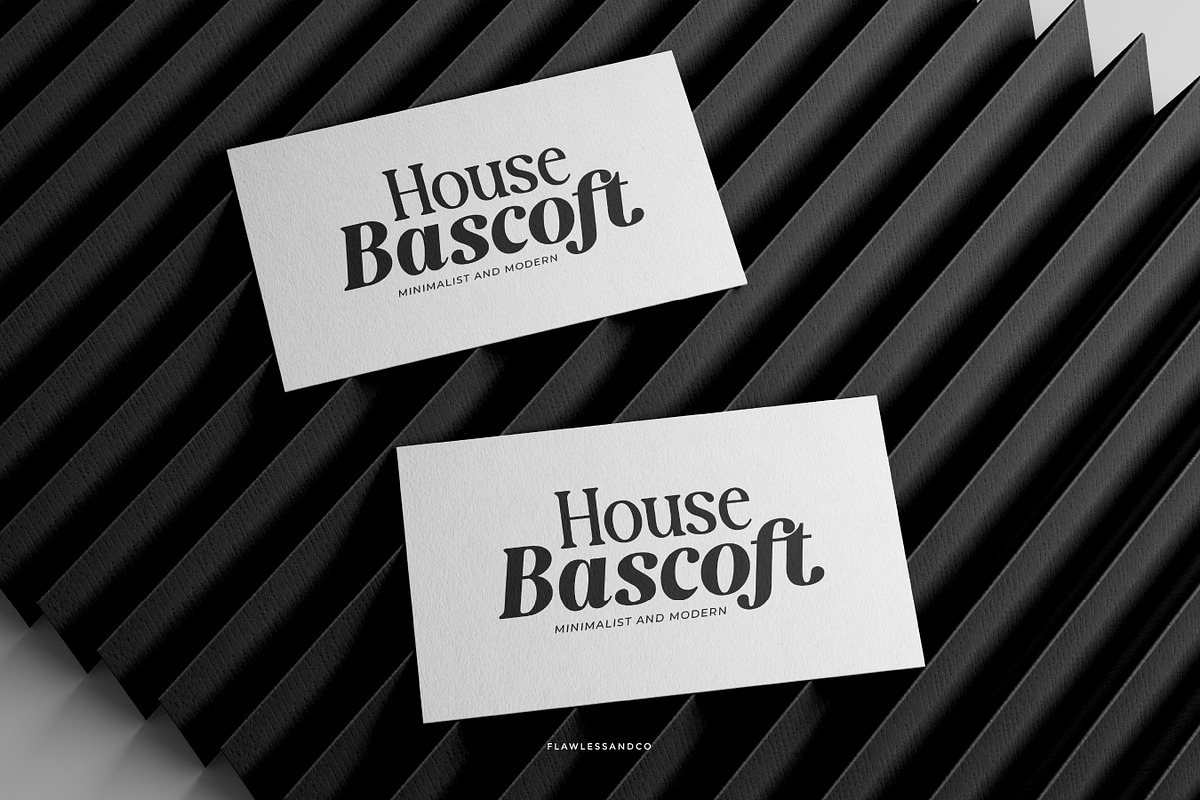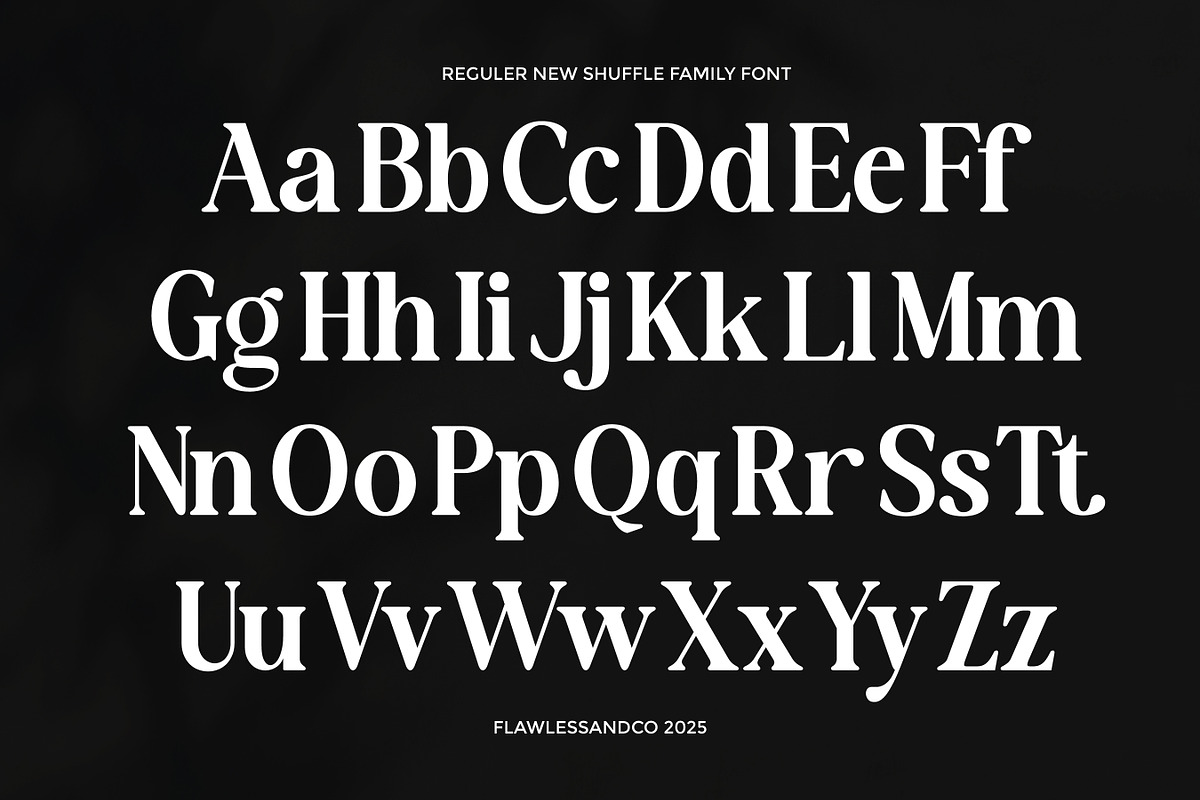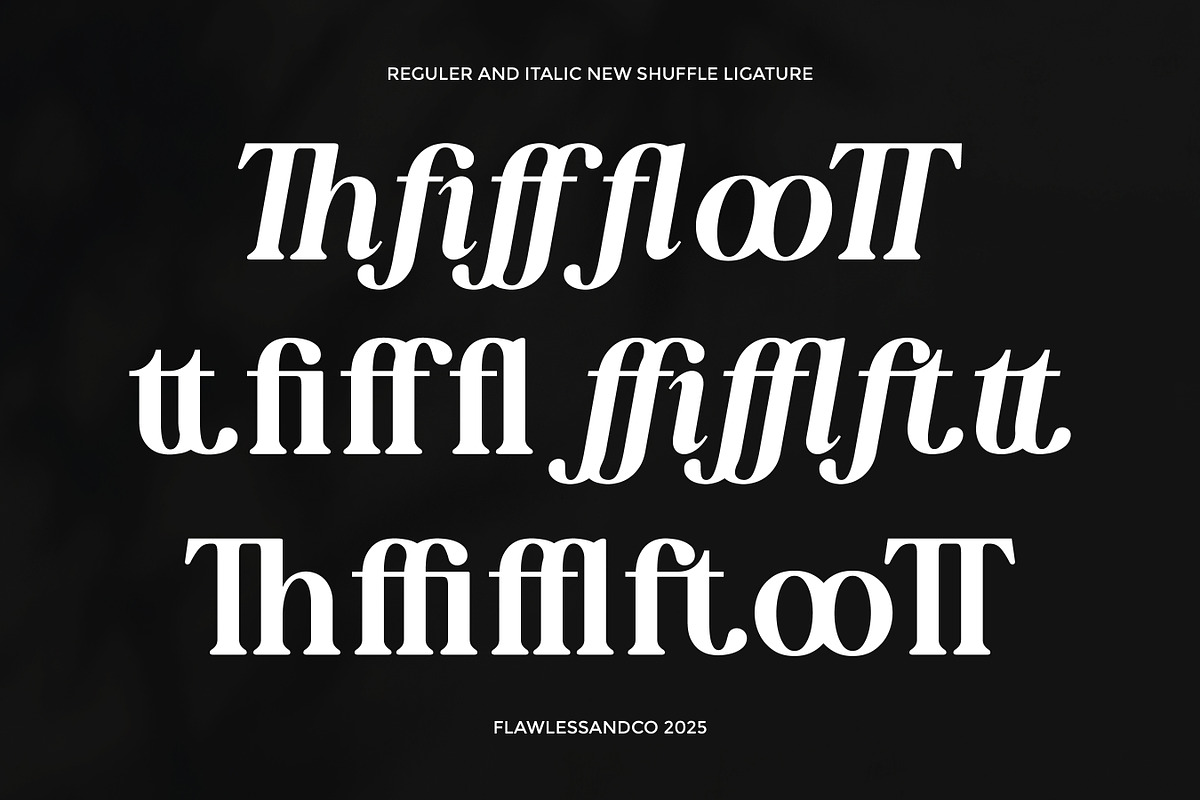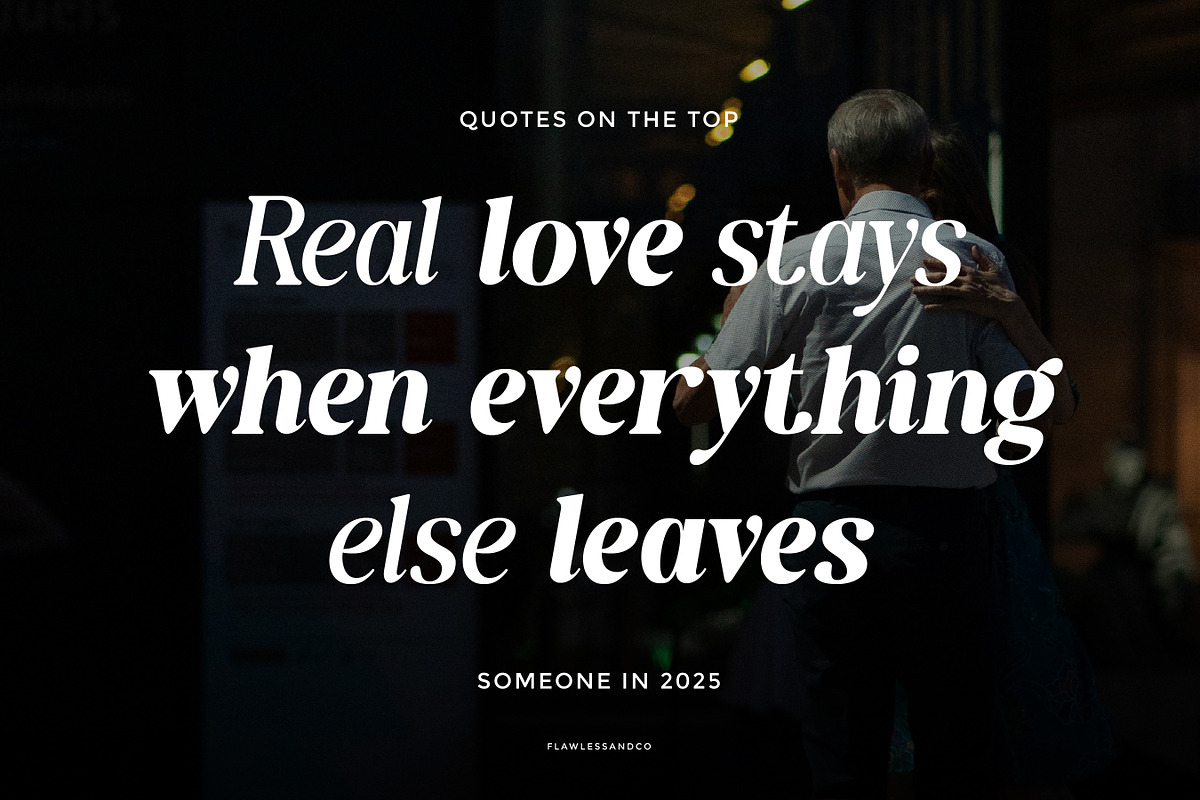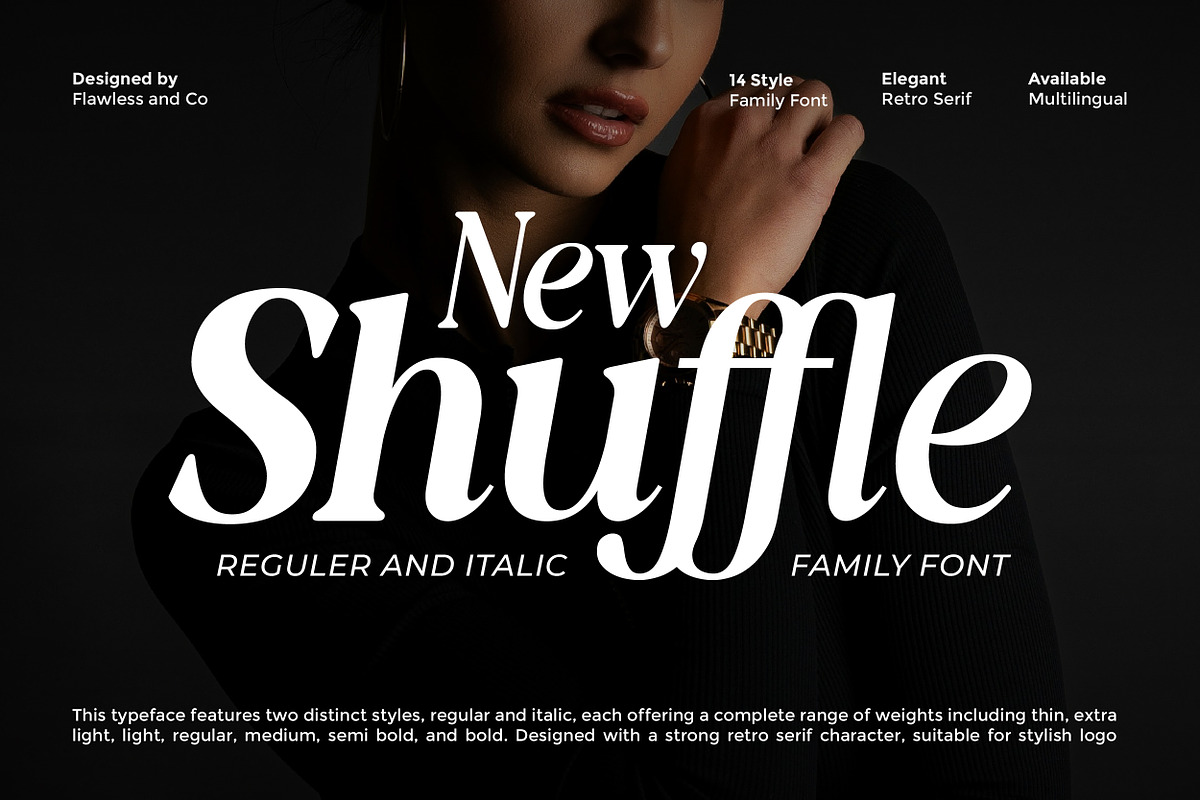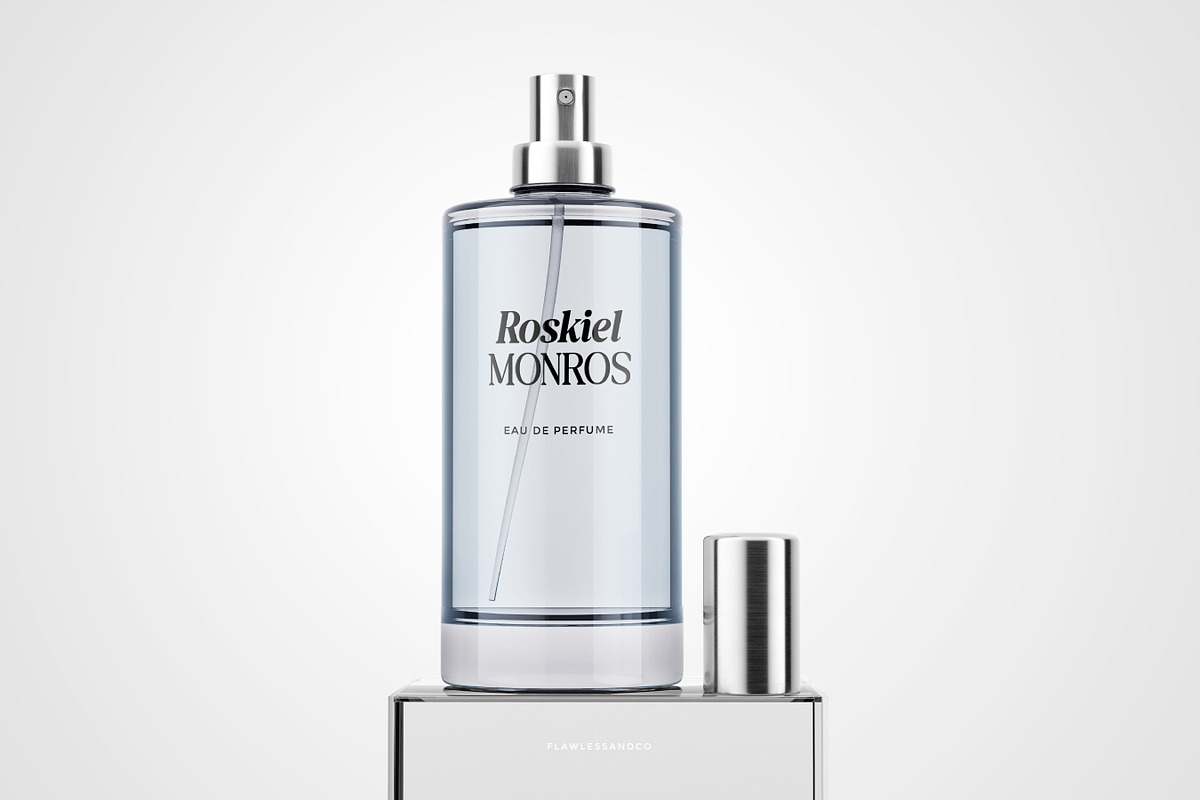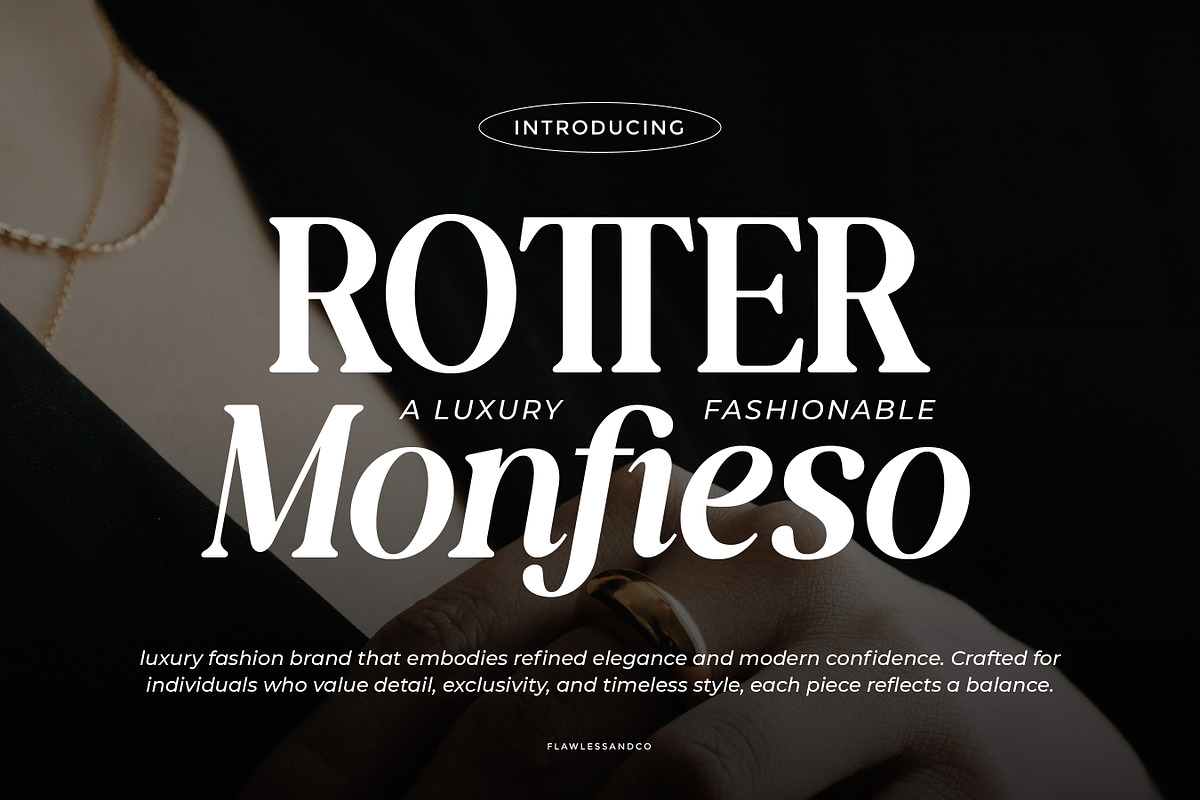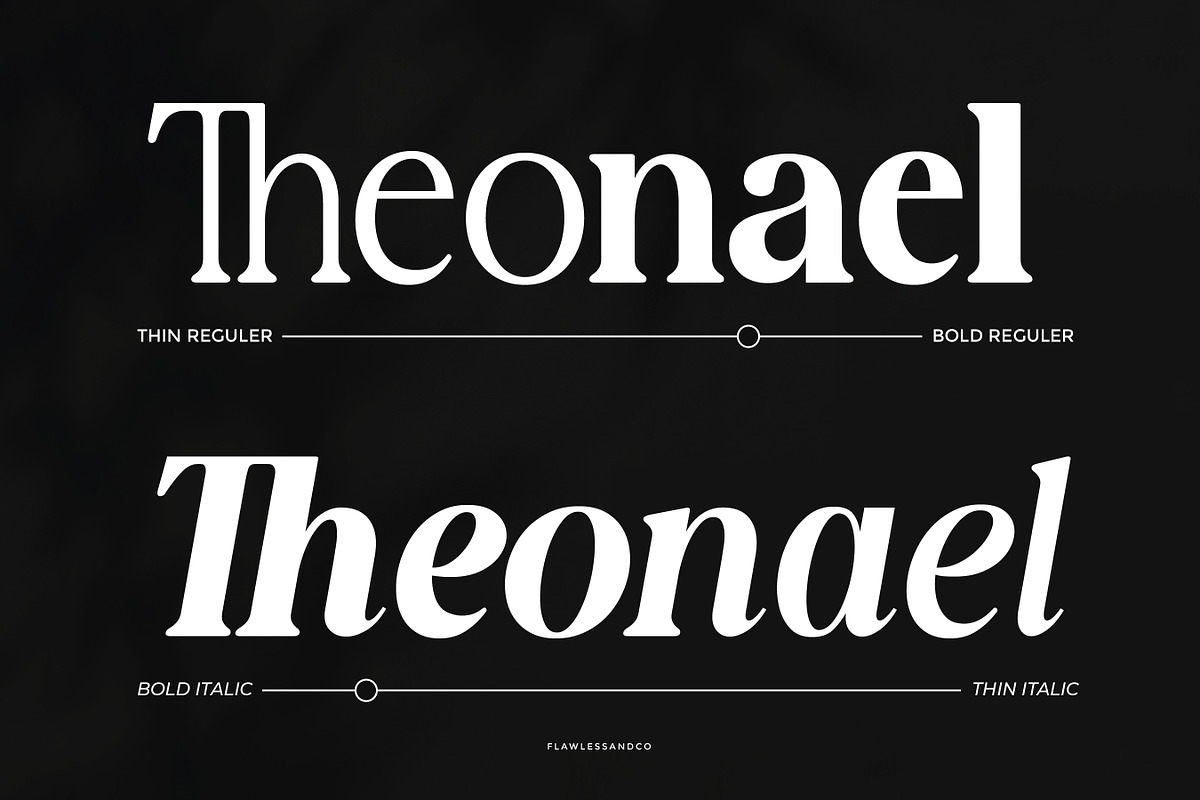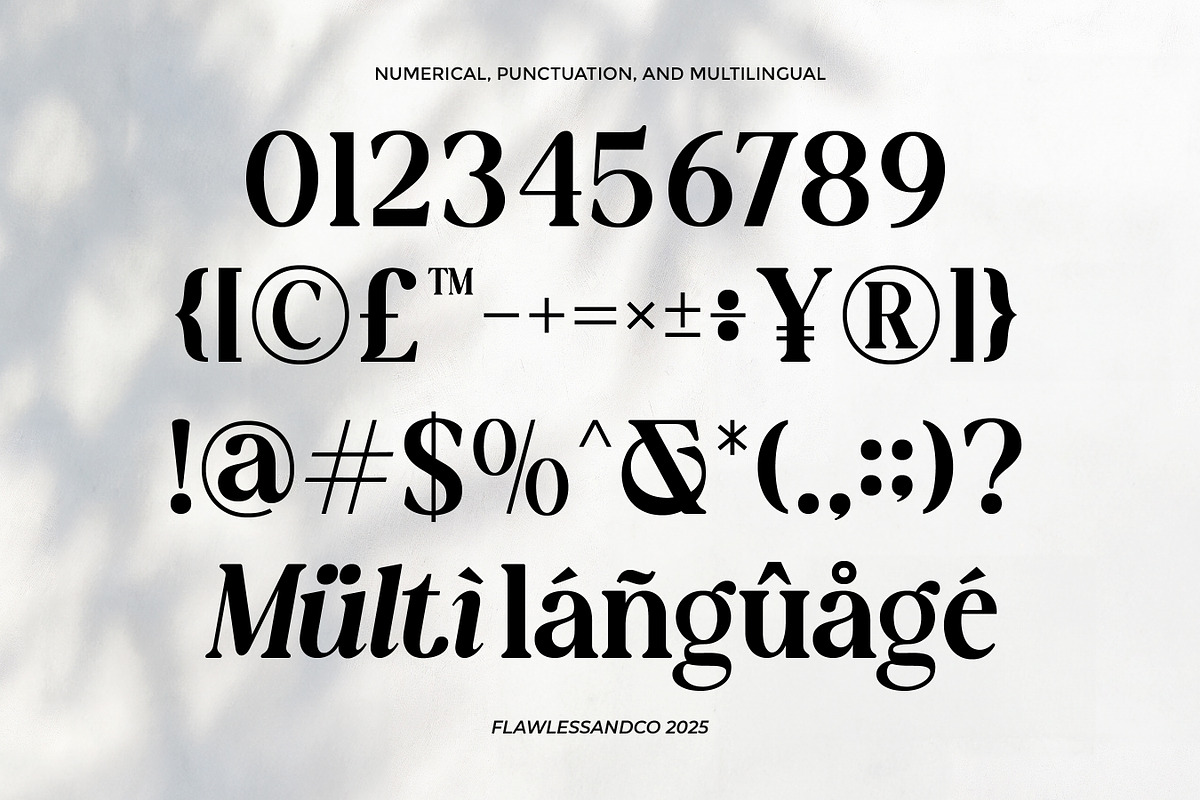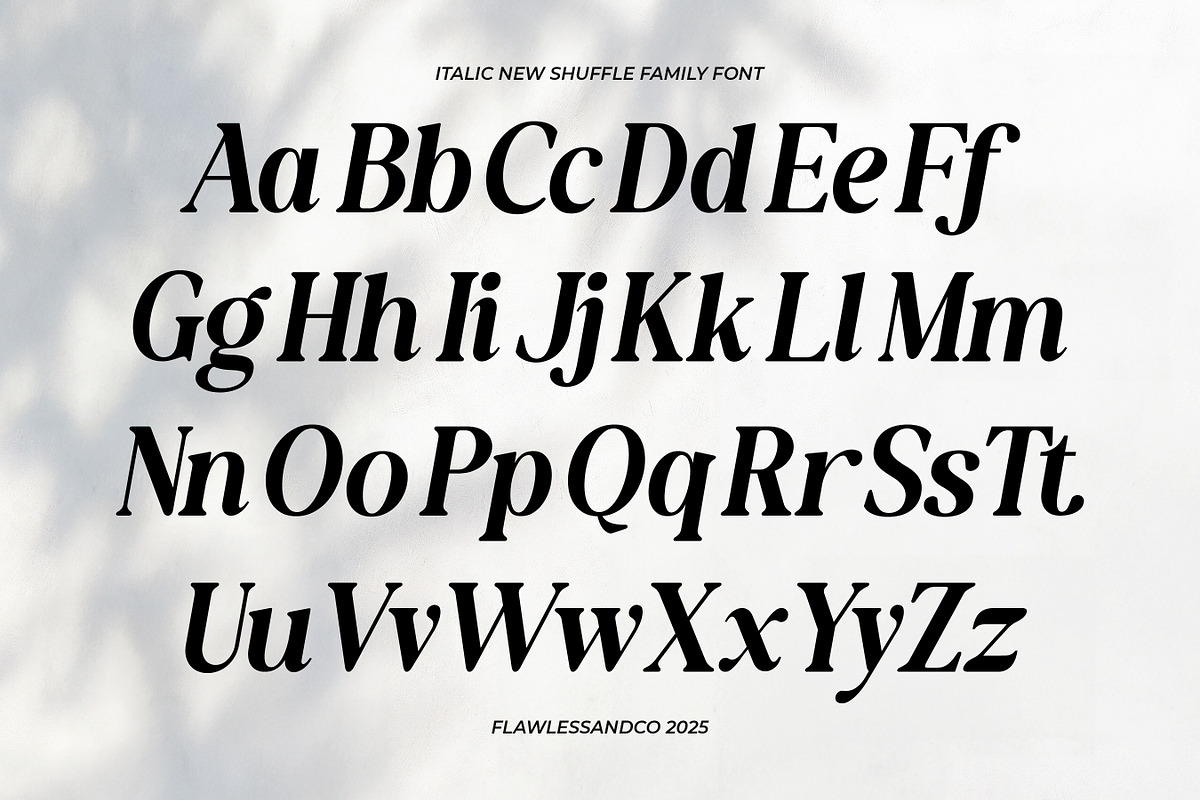
New Shuffle - Modern Serif Family Font
New Shuffle is a modern serif family font that blends elegance with a subtle retro character. Featuring both Regular and Italic styles across a wide range of weights, this typeface is designed to deliver flexibility, sophistication, and strong visual impact. Its refined curves and balanced proportions make New Shuffle perfect for premium and contemporary design projects.
Who Should Use New Shuffle?
New Shuffle is ideal for brand designers, graphic designers, and creatives who need a versatile serif family with both classic and modern appeal. It’s well-suited for those working on branding, editorial layouts, and stylish visual identities that require consistency across multiple weights and styles.
Why Choose New Shuffle for Brand and Logo Projects?
With its complete family structure and elegant serif details, New Shuffle allows designers to create cohesive brand systems with ease. The combination of Regular and Italic styles adds expressiveness, while the modern serif form ensures logos remain distinctive, professional, and timeless.
Suitable For
- Brand and logo design
- Luxury and fashion branding
- Editorial and magazine layout
- Packaging design
- Posters and headlines
- Website and digital design
- Marketing and promotional materials